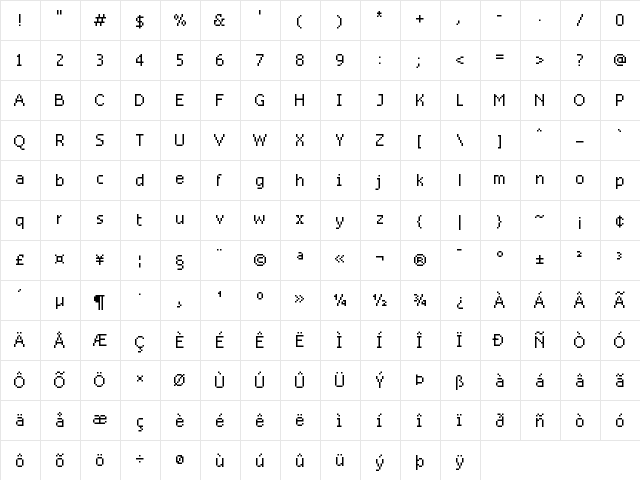
AprilSans Regular
Design Context for AprilSans Typeface
AprilSans is a composed and adaptable typeface that performs quietly and consistently across a wide range of design contexts.